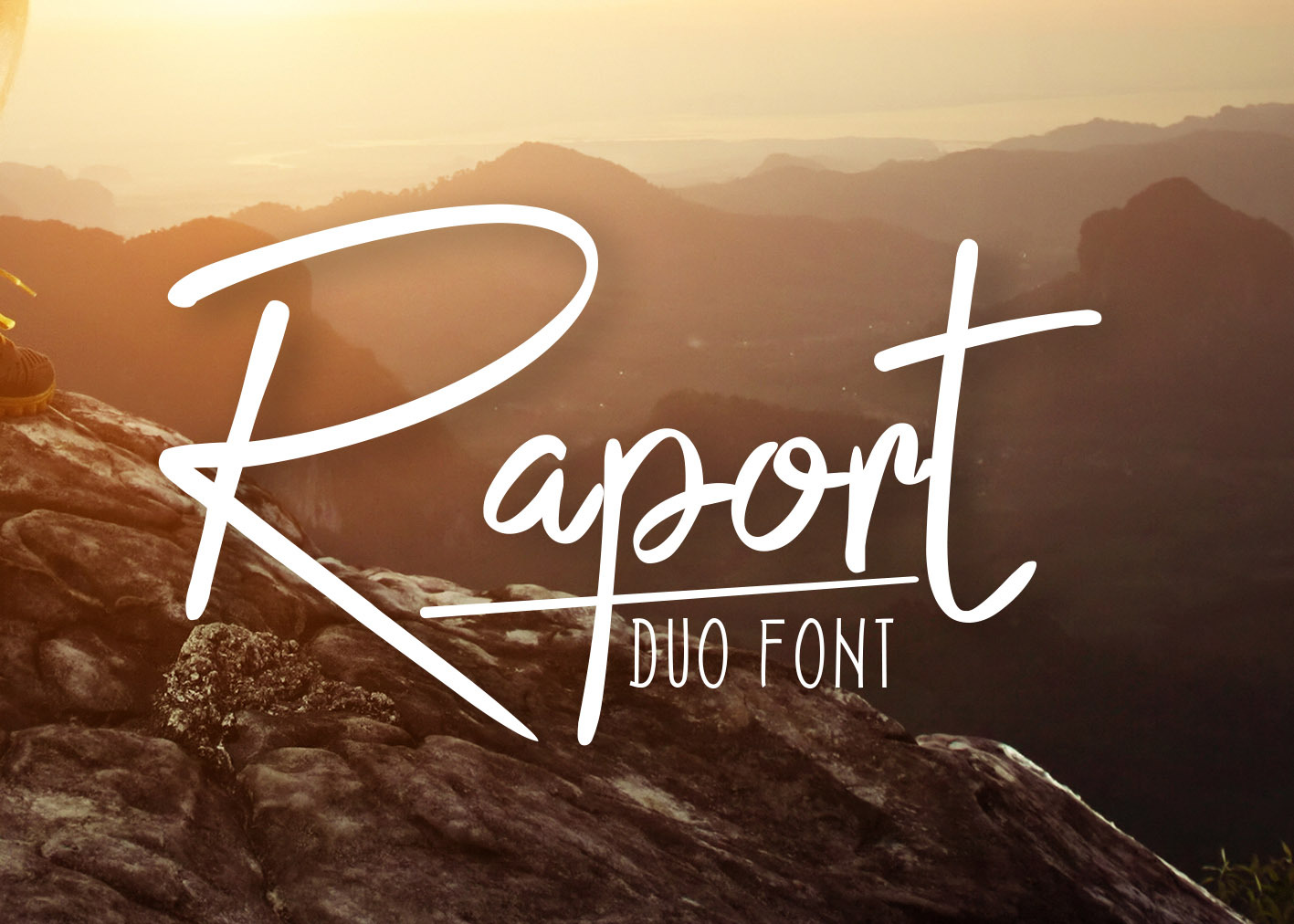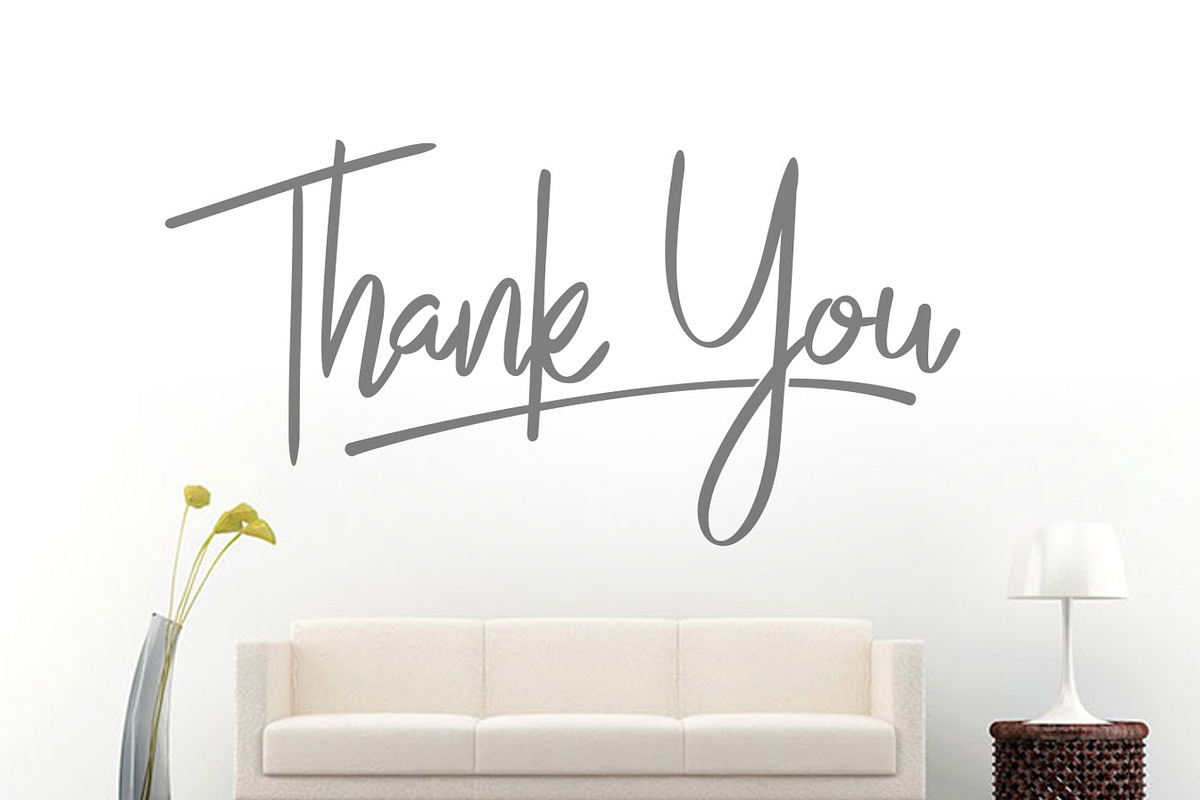
Raport Script (Duo Font + Extra)
Introducing Raport Script Typeface – a font that is very fresh and unique style handmade with 2 different style, Raport Script and Raport Sans. Raport Script Typeface is perfectly suited to logo, stationery, poster, apparel, branding, wedding invitation, card, tagline, layout design, and much more !!